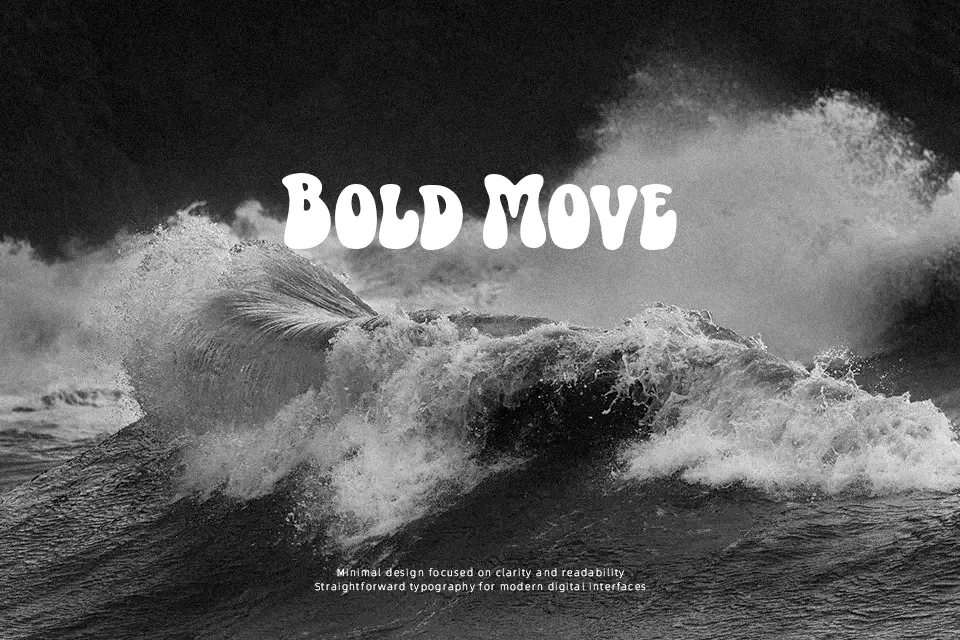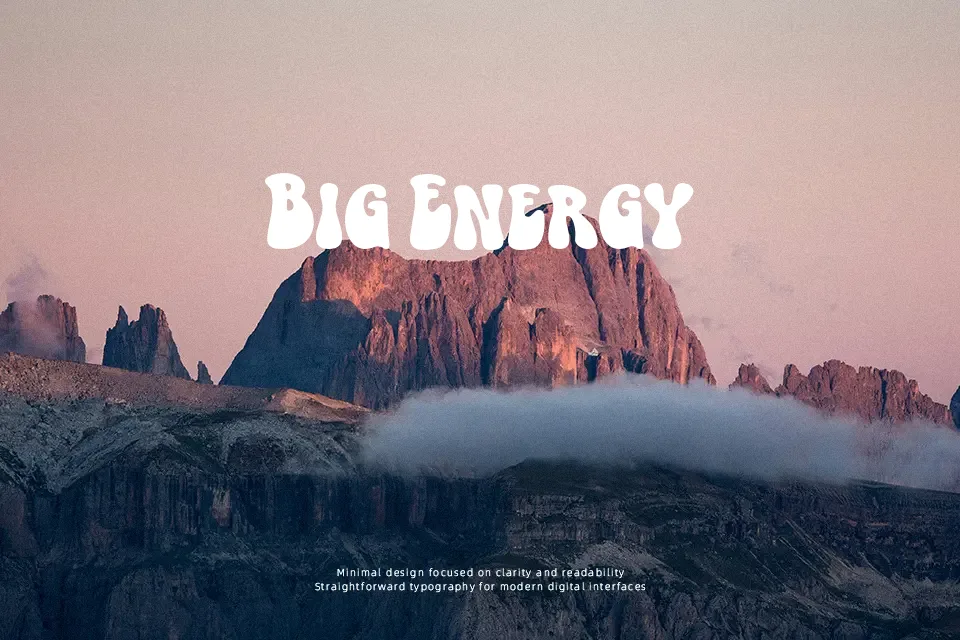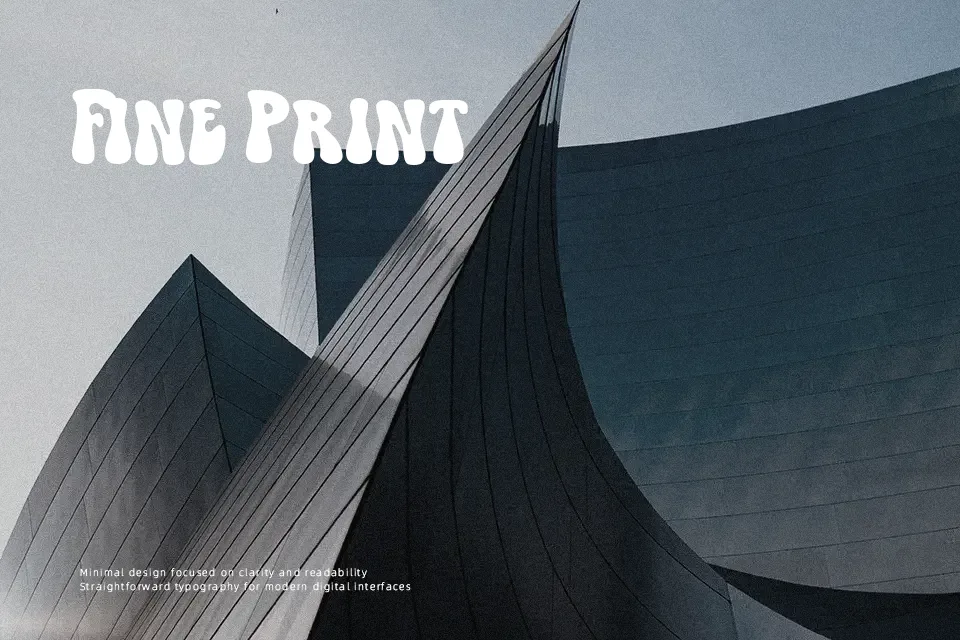
Blue Sugar Groovy Font
Designed by Faras Dina
Blue Sugar Groovy Font is a thick, highly stylized display typeface defined by its syrupy, bulbous curves and puddle-like counters. The letterforms carry a wavy, hand-poured weight that packs closely together, generating a loud and rhythmic 1970s aesthetic. This energetic, retro design thrives when you need to make a bold, nostalgic statement, such as on music festival posters, vibrant event flyers, or playful children’s packaging. It stands out by feeling intentionally off-kilter and incredibly friendly. However, because of its heavy, liquid-like structure and tight spacing, it becomes completely illegible at smaller sizes. You should avoid applying this typeface to any body text, corporate reports, or digital interfaces where rapid reading is essential.
– Vintage-themed music festival posters
– Vibrant packaging for children’s products
– Nostalgic event flyers and bold logos
– Dense paragraphs or editorial body text
– Corporate branding requiring a serious tone
– Small user interface elements on mobile screens
Perfect for kids, logo, and music, with a bold and decorative style.